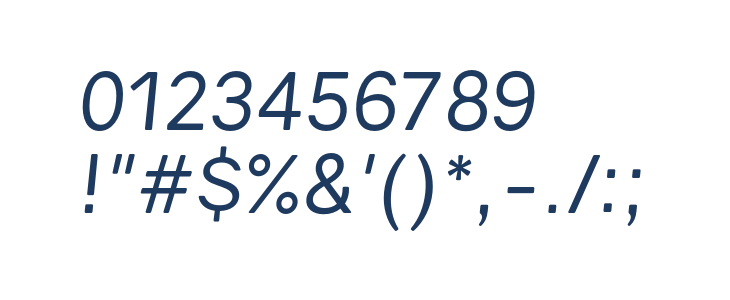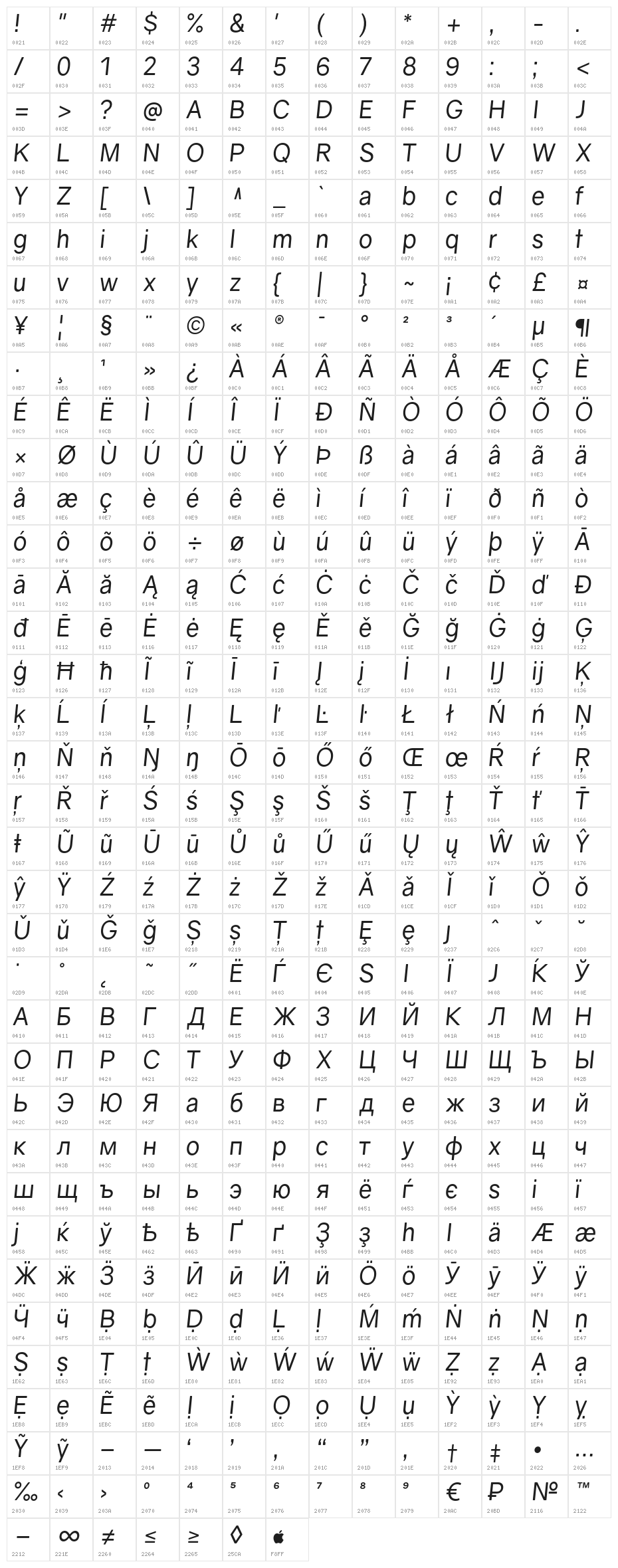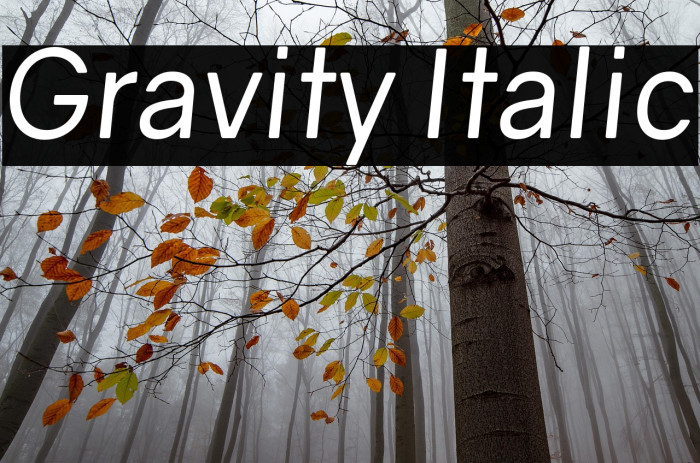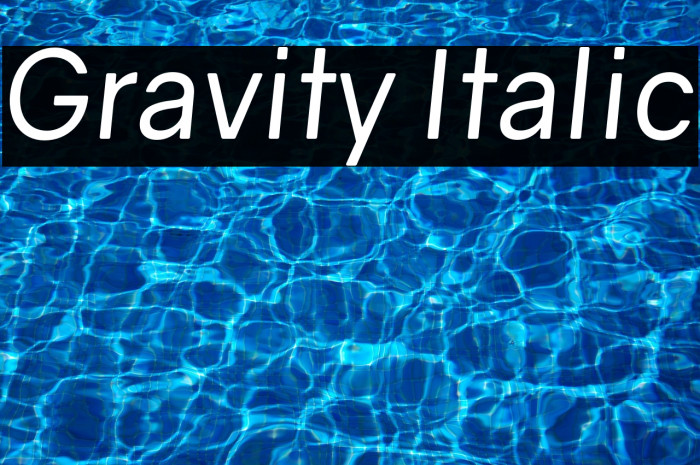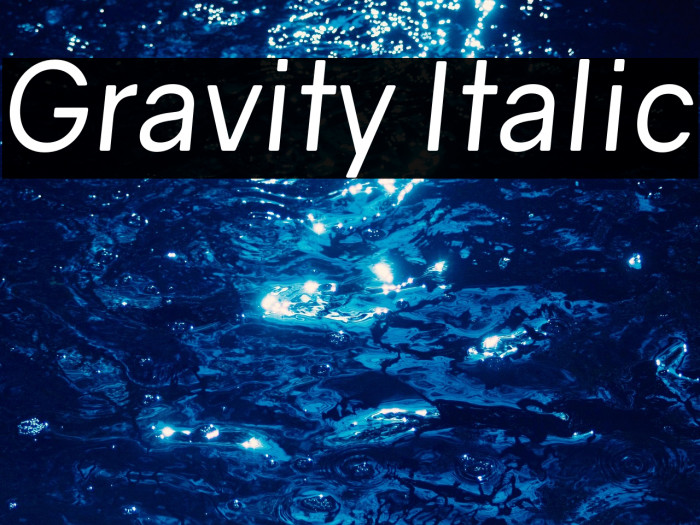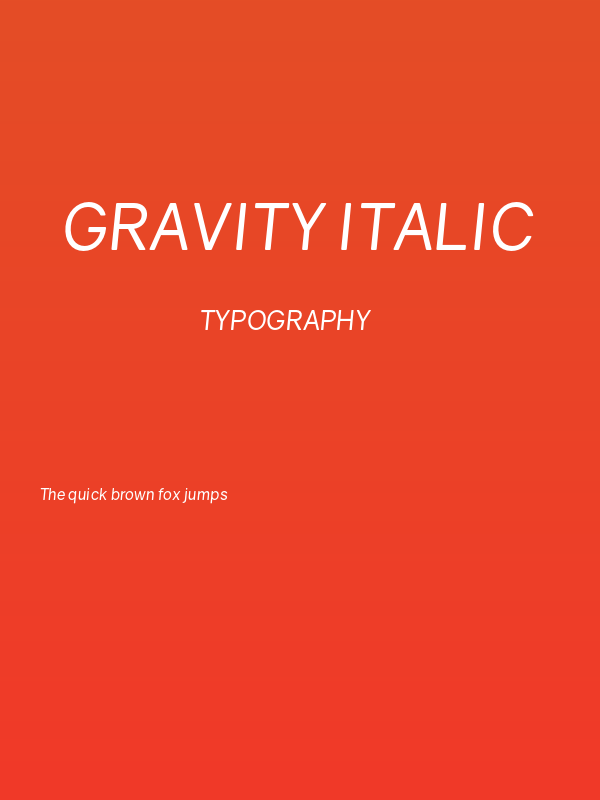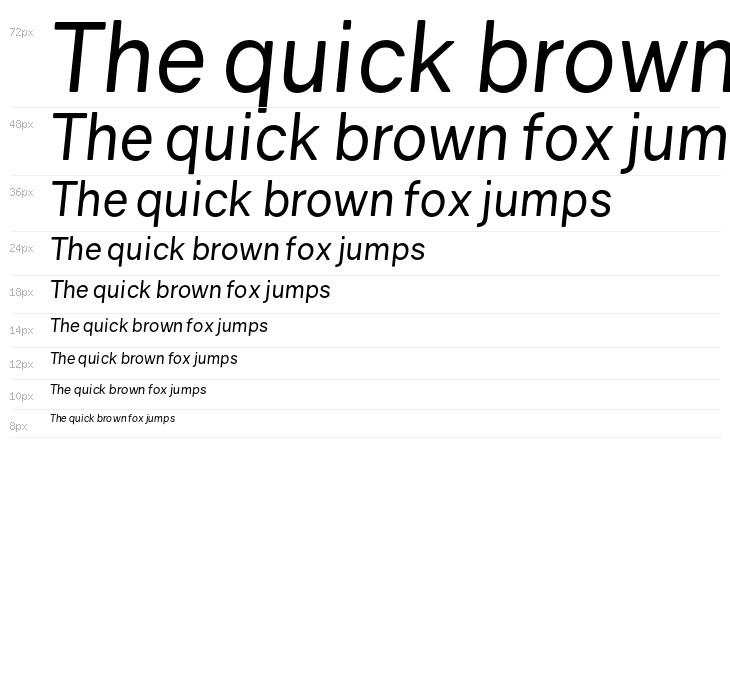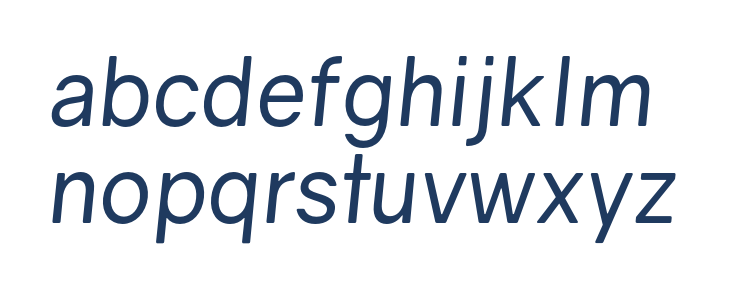
Gravity Italic Font
Gravity Italic Description
This font features a sleek and modern design with a slight slant, giving it an italicized appearance. The characters are clean and well-defined, with smooth curves and a consistent stroke width that conveys a sense of elegance and professionalism. The uppercase and lowercase letters maintain a harmonious balance, while the numerals are clear and easy to read. Special characters are thoughtfully designed to match the overall aesthetic, making this font versatile for various applications.
Proposed ProjectsIdeal for branding, editorial design, digital content, and advertising materials.